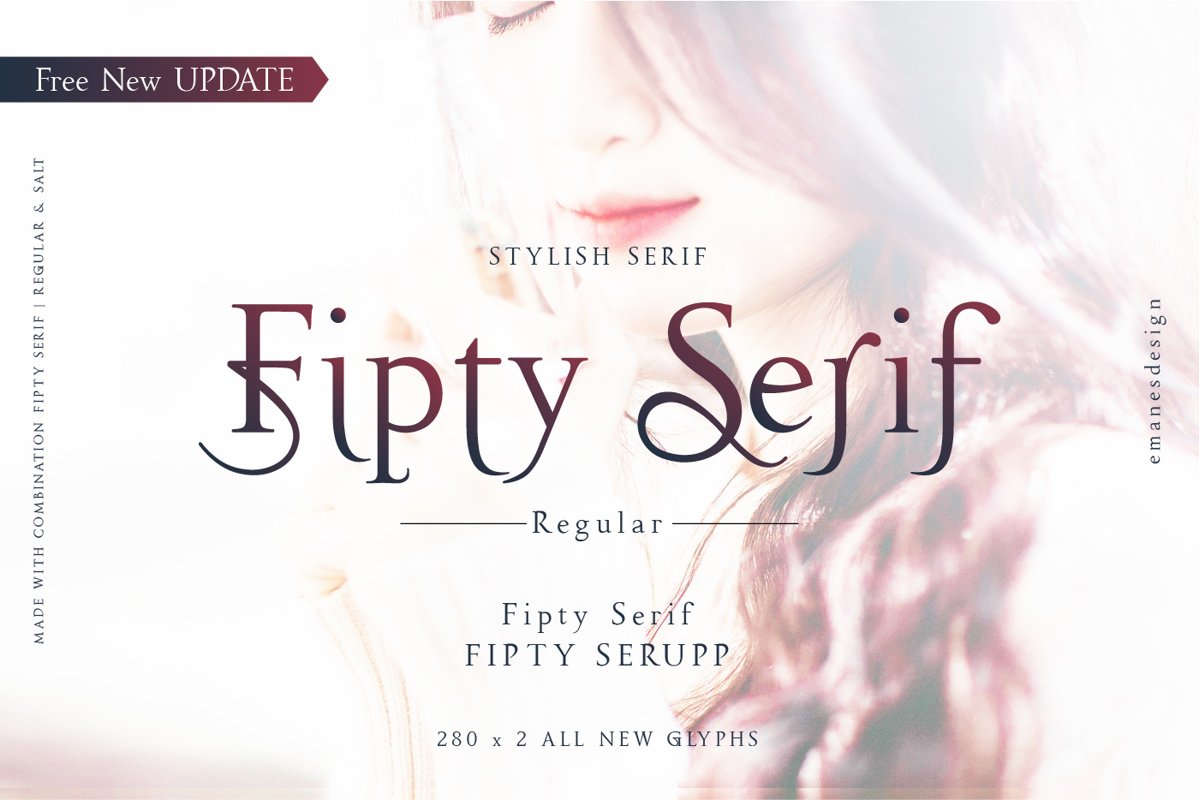
Fipty Serif Font Family
Fipty Serif-Regular
Fipty Serif-Uppercase
Fipty Serif is a gorgeous serif typeface. This stunning font is a stylish homage to classic calligraphy. It features a varying baseline, smooth lines, gorgeous glyphs and stunning alternates. It will add a romantic touch to your projects!